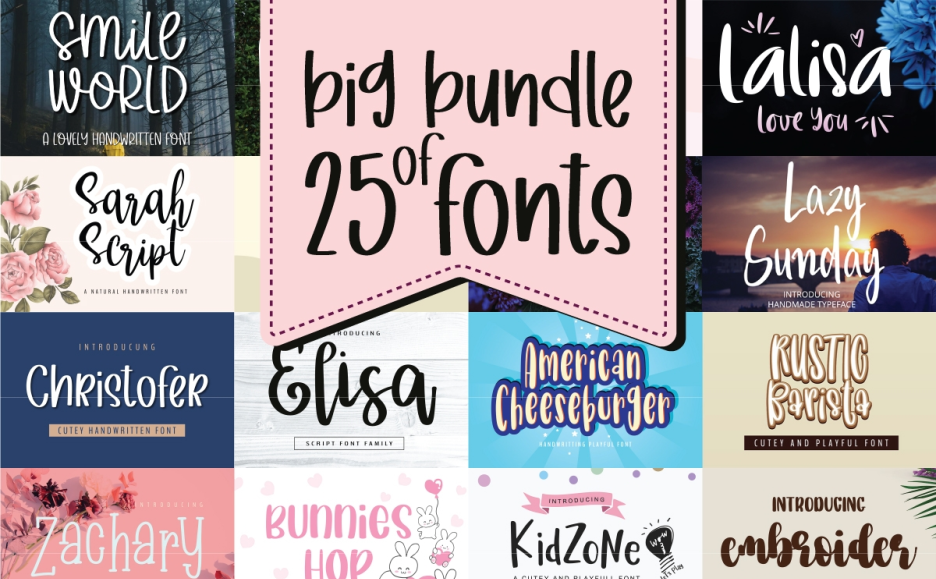
Big Bundle Of 25 Fonts
Elevate your design projects with the Big Bundle Of 25 Fonts. This extensive collection features a diverse range of font styles, from elegant serifs to modern sans-serifs, ensuring you have the perfect typeface for any occasion.
• 25 unique font styles
• Includes various weights and styles
Each font in this bundle is designed with precision and attention to detail. The collection includes:
• Serif fonts for classic and formal designs
• Sans-serif fonts for a clean, modern look
• Display fonts for eye-catching headlines
• Script fonts for a personal touch
Utilize this font bundle for a variety of projects, including branding, logos, web design, print materials, and user interfaces. The versatility of these fonts allows for creative freedom in your designs.